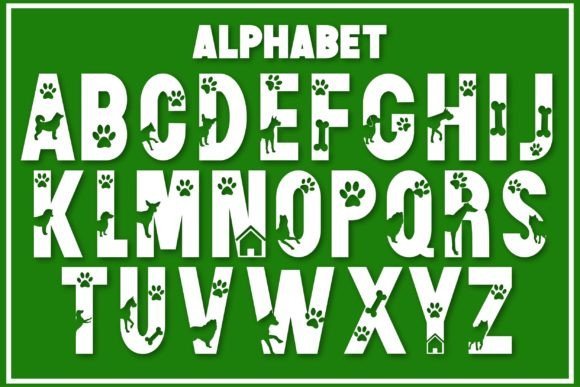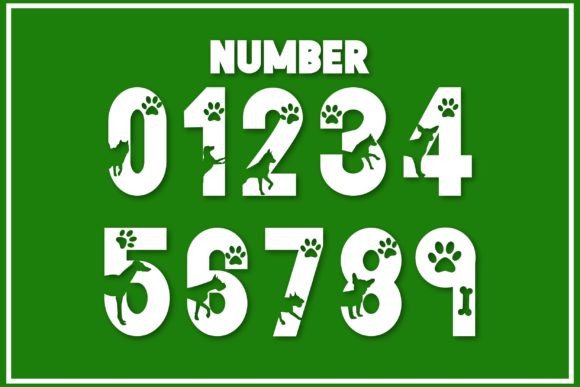
The Paw-fect Typography: Unlocking the Fun with Dog Font
Remember that moment when you were brainstorming ideas for a children’s book cover, and suddenly, a playful idea struck you? The thought of creating a whimsical world where kids and their beloved pets could thrive sparked your creativity. As you began sketching out your design, you knew you needed the right font to bring it to life. That’s when you stumbled upon Dog Font – a cool and original-looking decorative font that’s perfect for injecting joy into your creations.
Whether you’re working on cartoon-related designs, children’s games, or simply want to add a playful touch to your brand name, Dog Font is an excellent choice. This versatile font is valuable for designers looking to create engaging and memorable content that appeals to a wide audience. With Dog Font, you can add a dash of personality to your projects and make them truly stand out.
- Unique Character Set: Dog Font features a unique set of characters, including a wide range of dog breeds, paw prints, and other canine-themed icons. This makes it ideal for designers and artists looking to add a touch of whimsy to their work.
- Script and Language Support: The font supports a wide range of languages, including Latin, Cyrillic, and Greek scripts. This makes it suitable for use in a variety of contexts, from branding and advertising to publishing and education.
- Font Style and Variations: Dog Font comes in two main styles: a bold, playful font and a more elegant, cursive script. This allows designers to choose the perfect style to suit their needs and preferences.
Designer Review: Dog Font
Overall, I found the Dog Font to be a unique and playful choice for any project. Here are some things that I think work well: ✨
- High level of expressiveness: The font conveys a sense of energy and emotion, making it perfect for creative projects or applications where you want to convey a lighthearted tone.
- Fun and quirky: The font’s irregular shapes and varied line widths add to its charm and make it stand out in a crowd.
- Good for headings and titles: The font’s bold and attention-grabbing nature makes it ideal for headings and titles where you want to draw attention to a particular piece of text.
- Limited legibility: The font’s unique style can make it difficult to read at smaller font sizes or in situations where text is crowded.
- Not suitable for body text: While the font is great for headings and titles, it may not be the best choice for body text due to its irregularities and potential legibility issues.
- May not be suitable for formal projects: The font’s playful nature may not be suitable for formal projects or applications where a more serious tone is required.
Overall, I think the Dog Font is a fun and creative choice for the right project. While it may not be suitable for every application, it’s a great option for those who want to add a bit of personality and whimsy to their design.
Getting the Most Out of “Dog Font”
To get the most out of “Dog Font”, use it to create eye-catching headlines, titles, and other text elements in your projects. You can also experiment with different font sizes, colors, and effects to enhance the overall design.
Some common use cases for “Dog Font” include:
- Creative logos and branding
- Fun and playful social media posts
- Children’s educational materials